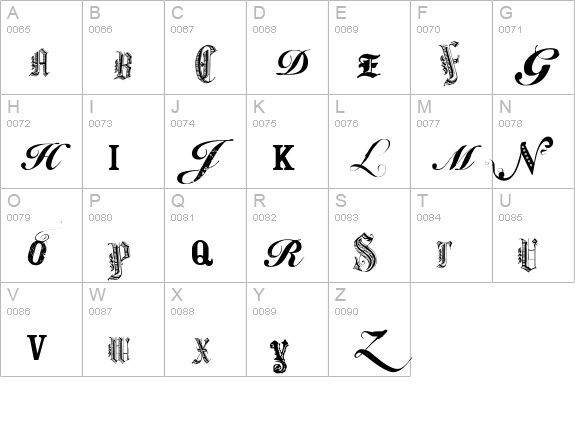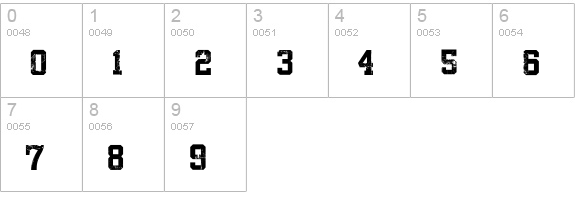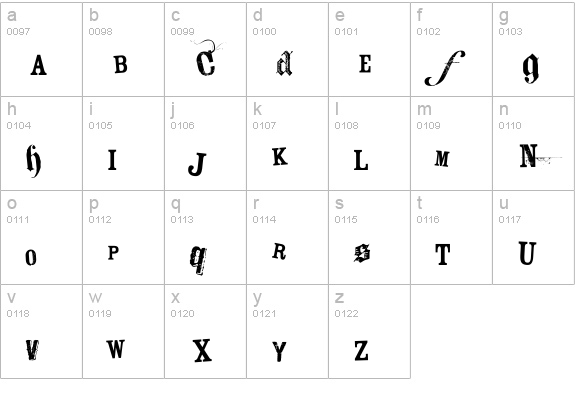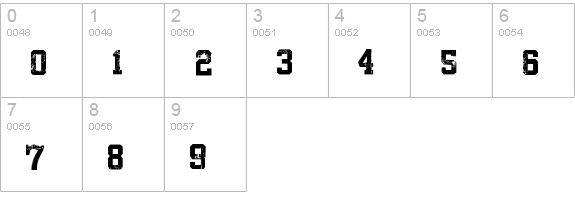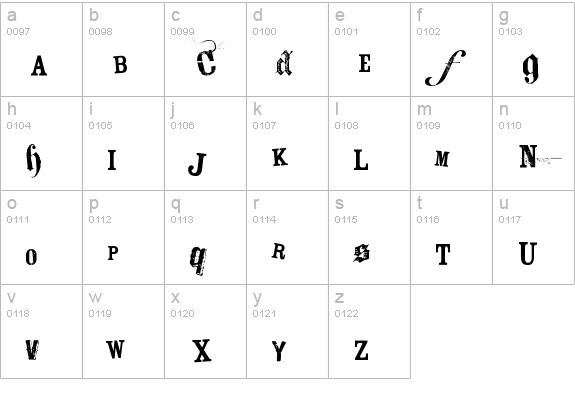
Keetano ATL My Gangsta Font Details
Keetano ATL My Gangsta font exudes an urban and edgy vibe, perfect for adding a bold statement to your designs. With its sharp edges and strong presence, this font brings a sense of attitude and confidence to any project. Whether you're creating posters, album covers, or branding materials, Keetano ATL My Gangsta font is sure to make a lasting impression. The best part? This font is completely free to download at FontsMarket.com. So go ahead and unleash your creativity with Keetano ATL My Gangsta font, and let your designs stand out from the crowd with its unique and striking style.